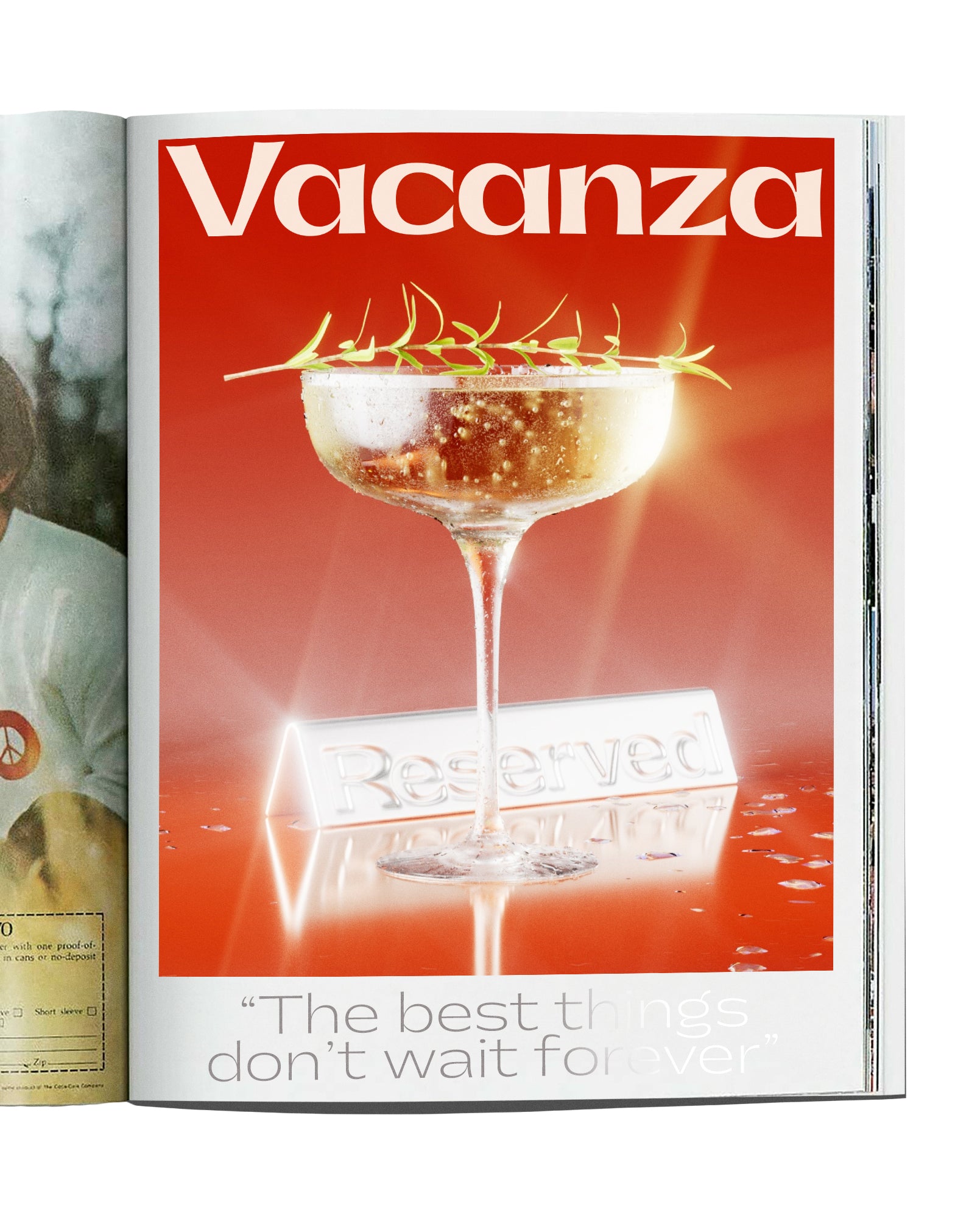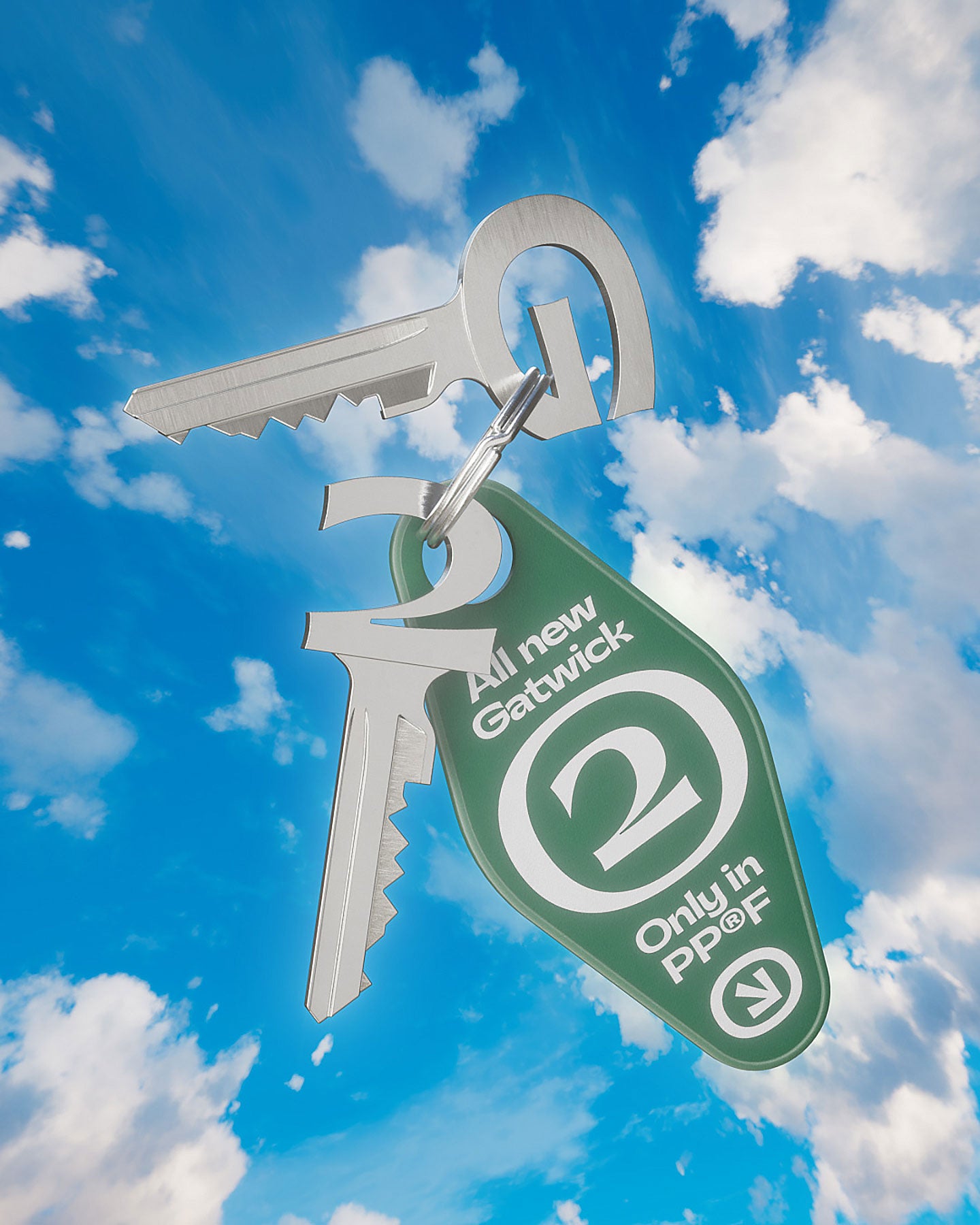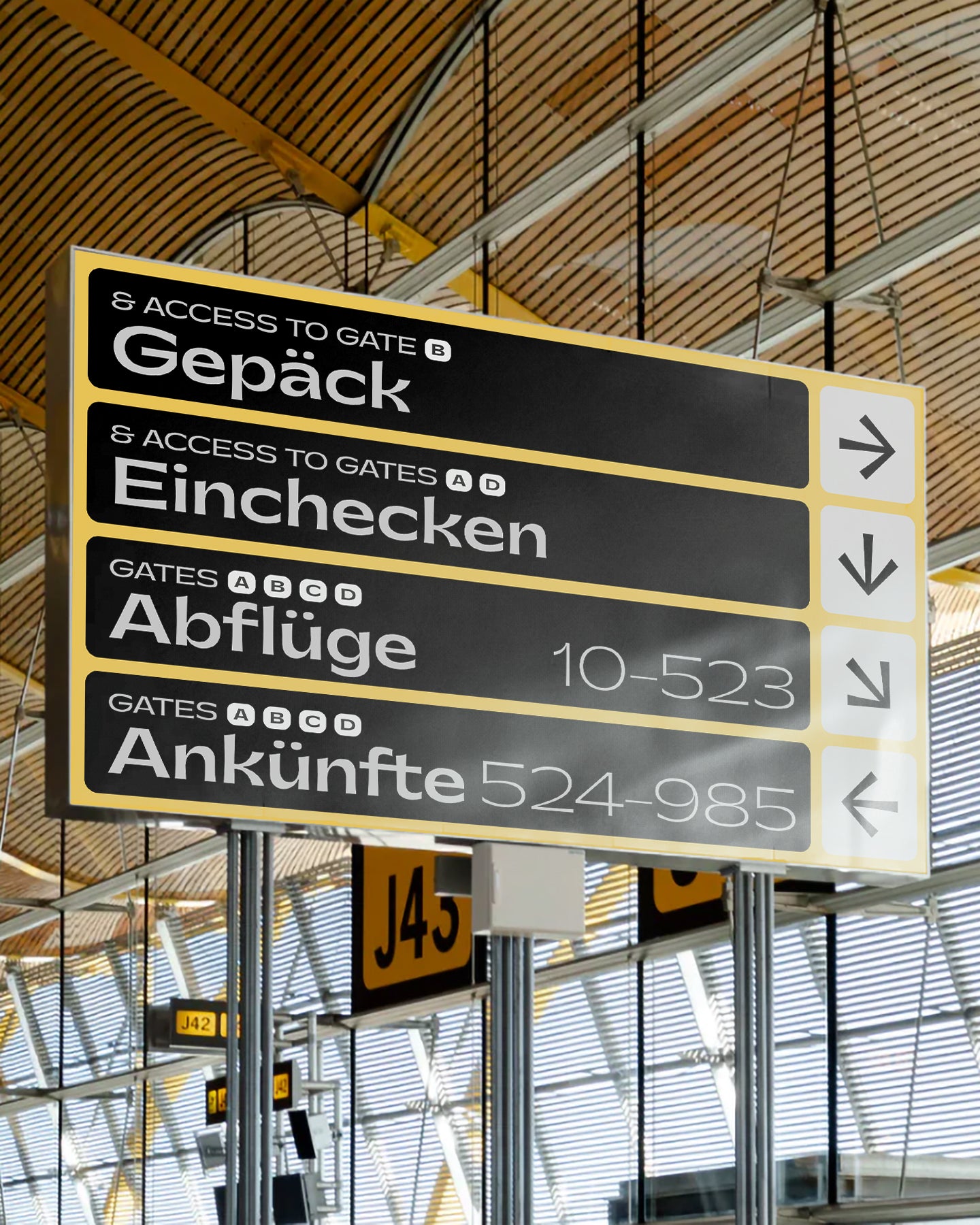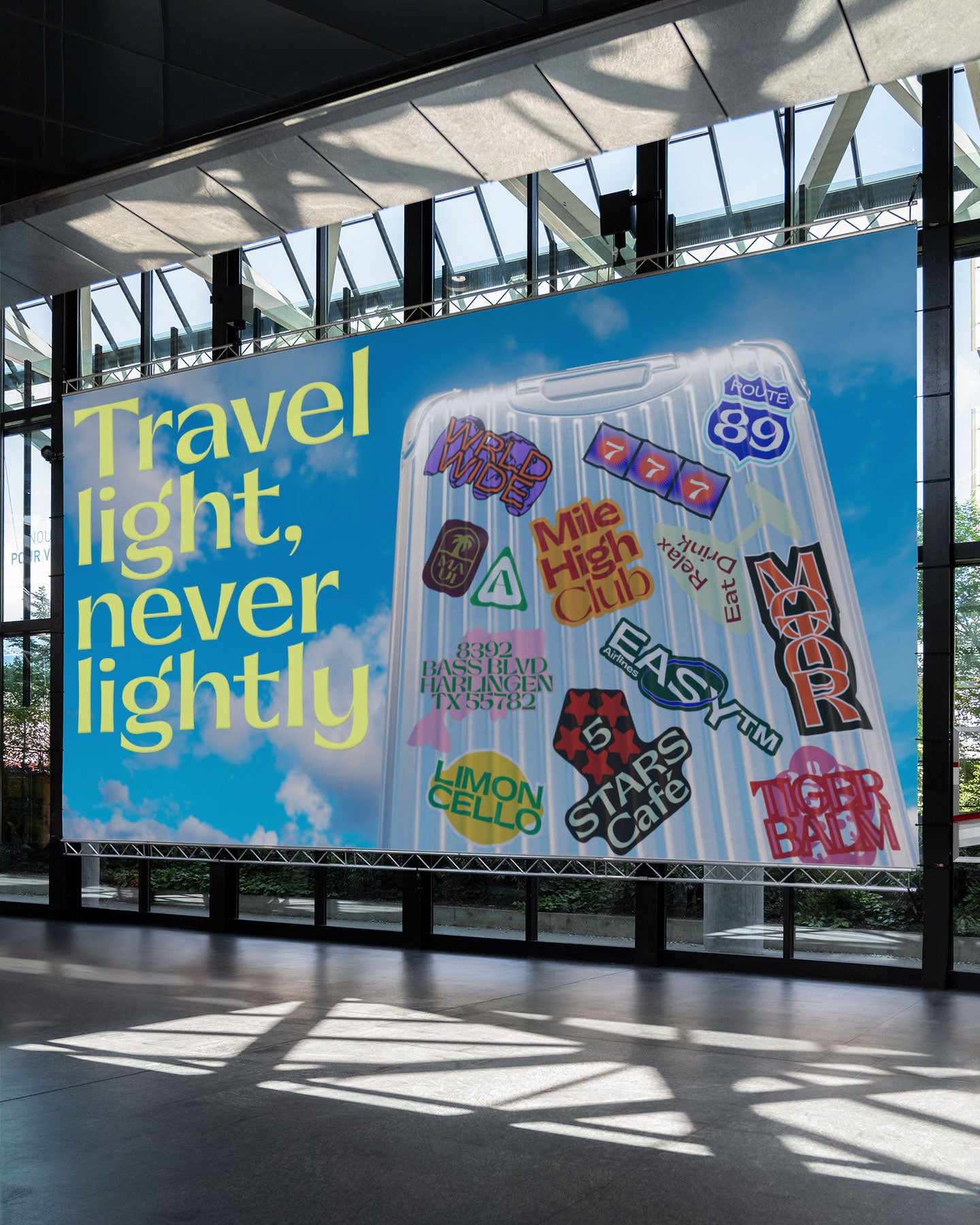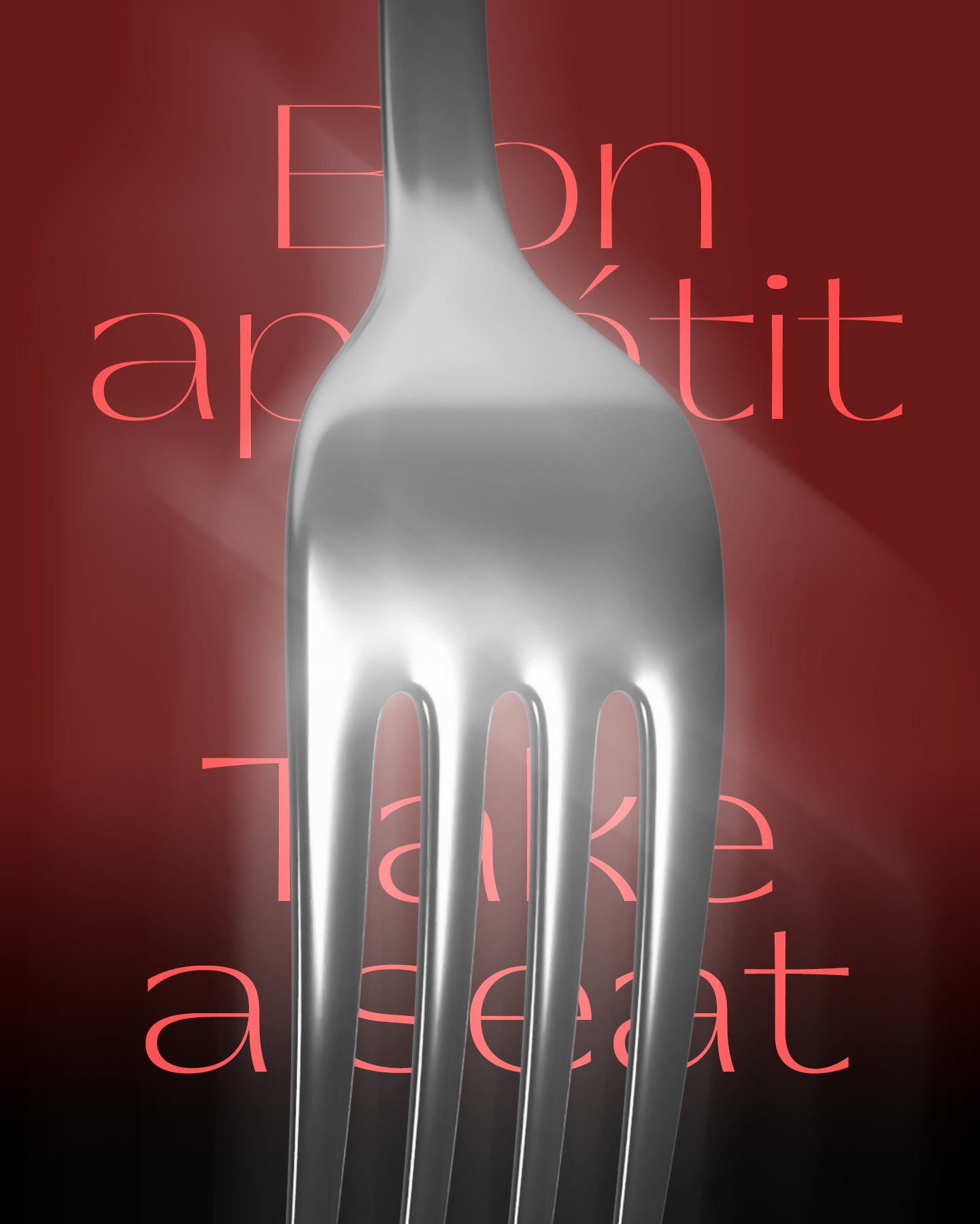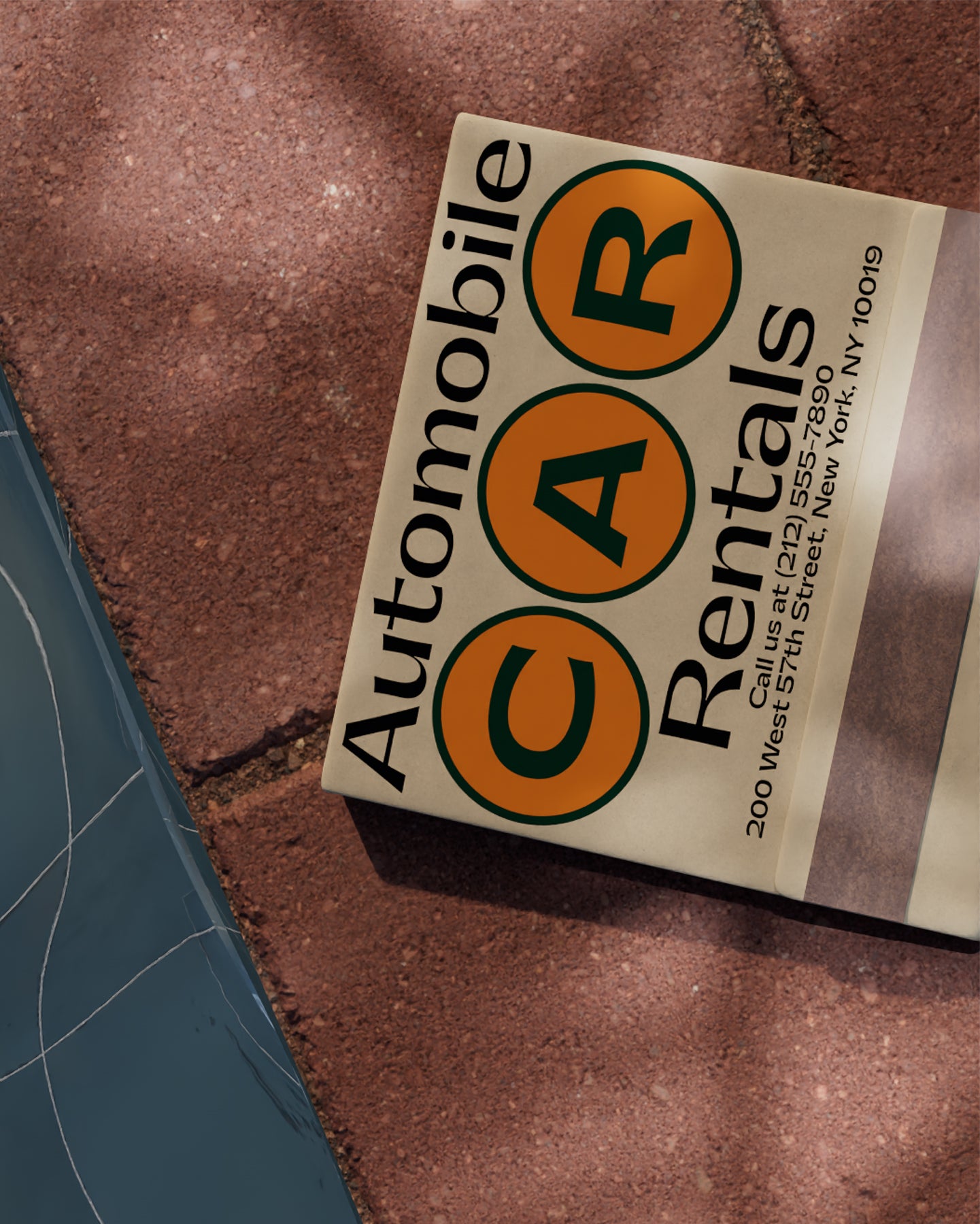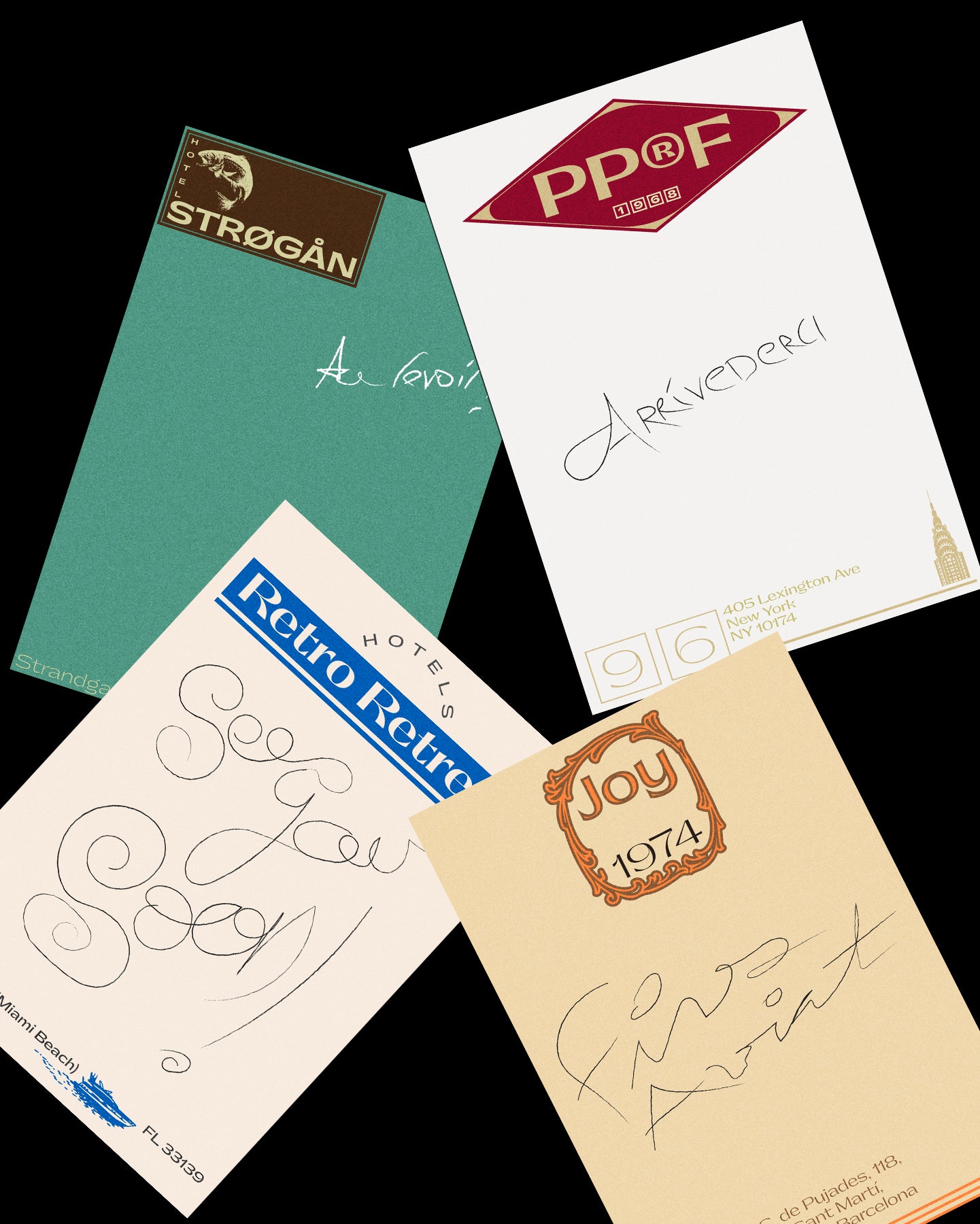
Gatwick
Gatwick stands out with its tapered stems, sharp terminals, and exuberant details.
Travel light. Never lightly.
Gatwick is a wide incise typeface that blends a funky attitude with a refined spirit, resonating with vintage and contemporary aesthetics alike in a unique, memorable way. Unlike many fonts in its genre that rely on uniform proportions and consistent thickness to maintain a “neutral” tone, Gatwick stands out with its tapered stems, sharp terminals, and exuberant details. This distinctive flair gives it an exotic, extravagant character that immediately catches the eye of the reader.
With the release of Version 2.0, Gatwick expands its versatility by introducing two new high-contrast families. These additions are ideal for crafting elegant headlines and subtitles, adding an extra layer of sophistication to any project. Designed to fly your creative work to new, unexpected destinations, Gatwick delivers the reliability and comfort of a first-class experience, while ensuring your designs leave a lasting impression.